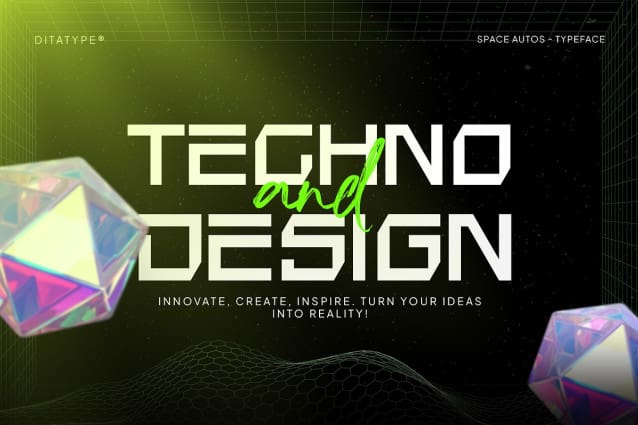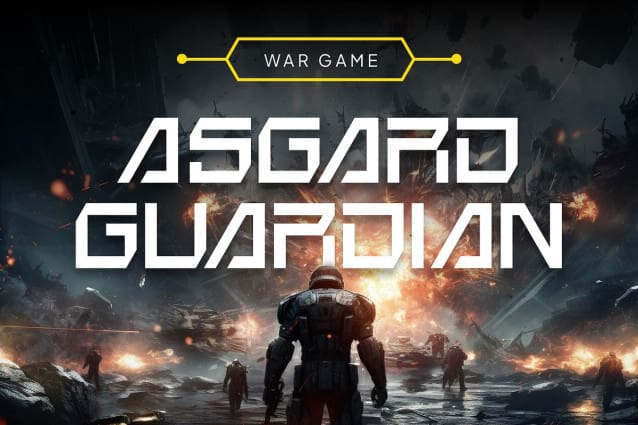
Space Autos Font
Space Autos Font – a sleek, futuristic display font designed to make a striking impression. Presented in all caps with a balanced weight that’s not too thick, SpaceAutos combines sharp, angular corners with a cutting-edge style. Space Autos delivers a clean, forward-looking look that stands out in any space. In addition, enjoy the features here.